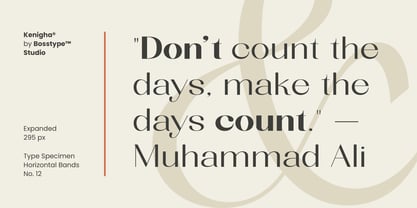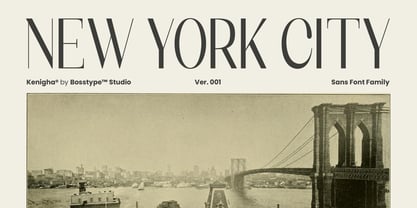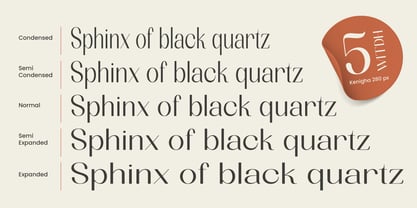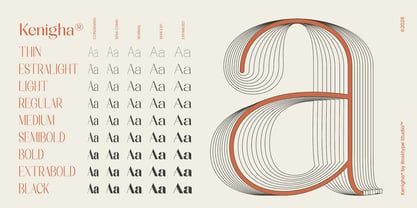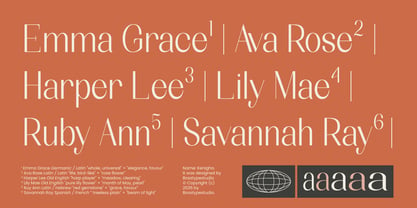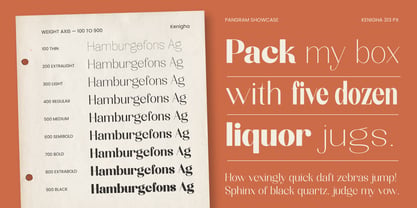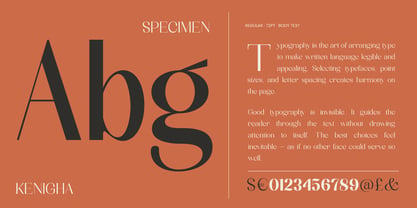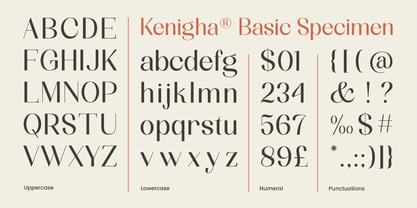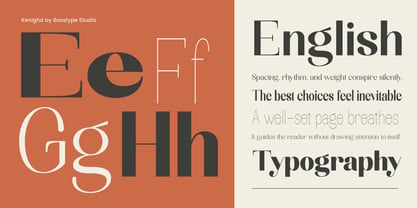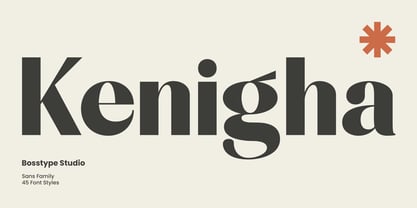
Kenigha
par Bosstypestudio
La famille de polices Kenigha a été conçue par Mu Fazzal et publiée par Bosstypestudio. Kenigha contient 46 styles et options de package familial. En savoir plus sur cette famille
Kenigha – Modern Sans Serif Font Family Kenigha is a modern sans serif typeface that blends timeless elegance with a strong contemporary touch. Designed with balanced proportions, smooth curves, and distinctive details in every character, Kenigha delivers a clean, sophisticated, and highly legible appearance. With a total of 45 font styles, Kenigha offers exceptional versatility for a wide range of design needs—from branding and editorial to logos and digital interfaces. Its extensive range of weights allows you to build strong visual hierarchy while maintaining a consistent aesthetic. Kenigha’s unique character lies in its soft yet confident letterforms, making it a perfect choice for designs that aim to look modern, premium, and professional. Key Features: 45 font styles (Thin to Black) Clean and modern sans serif design Highly readable for both print and digital use Ideal for branding, logos, editorial, and UI design Multilingual support Kenigha is the perfect choice for designers seeking a balance between visual beauty and functional performance in a single font family.